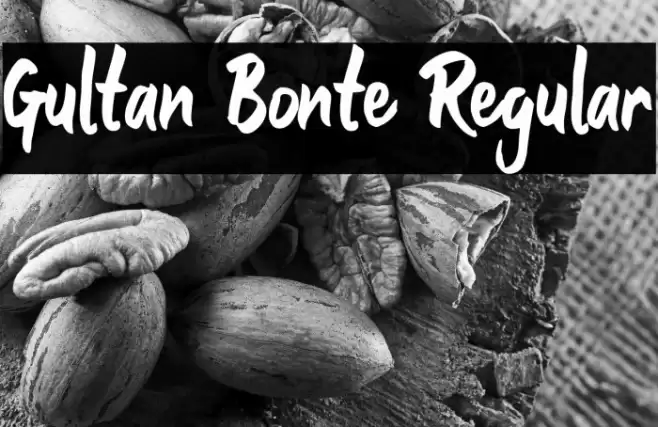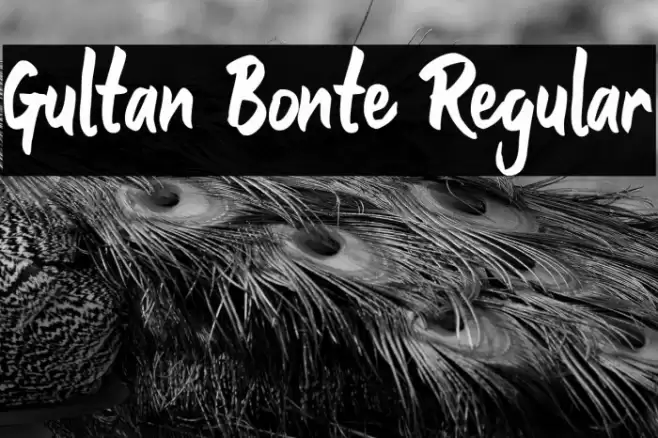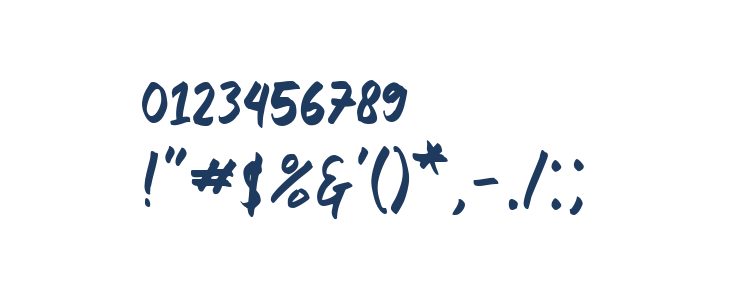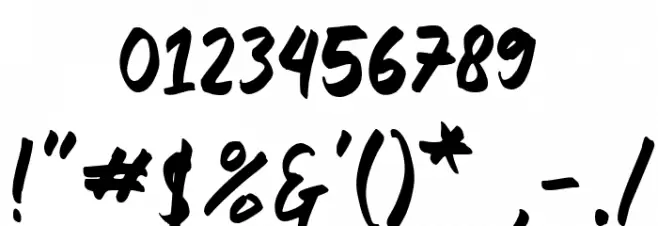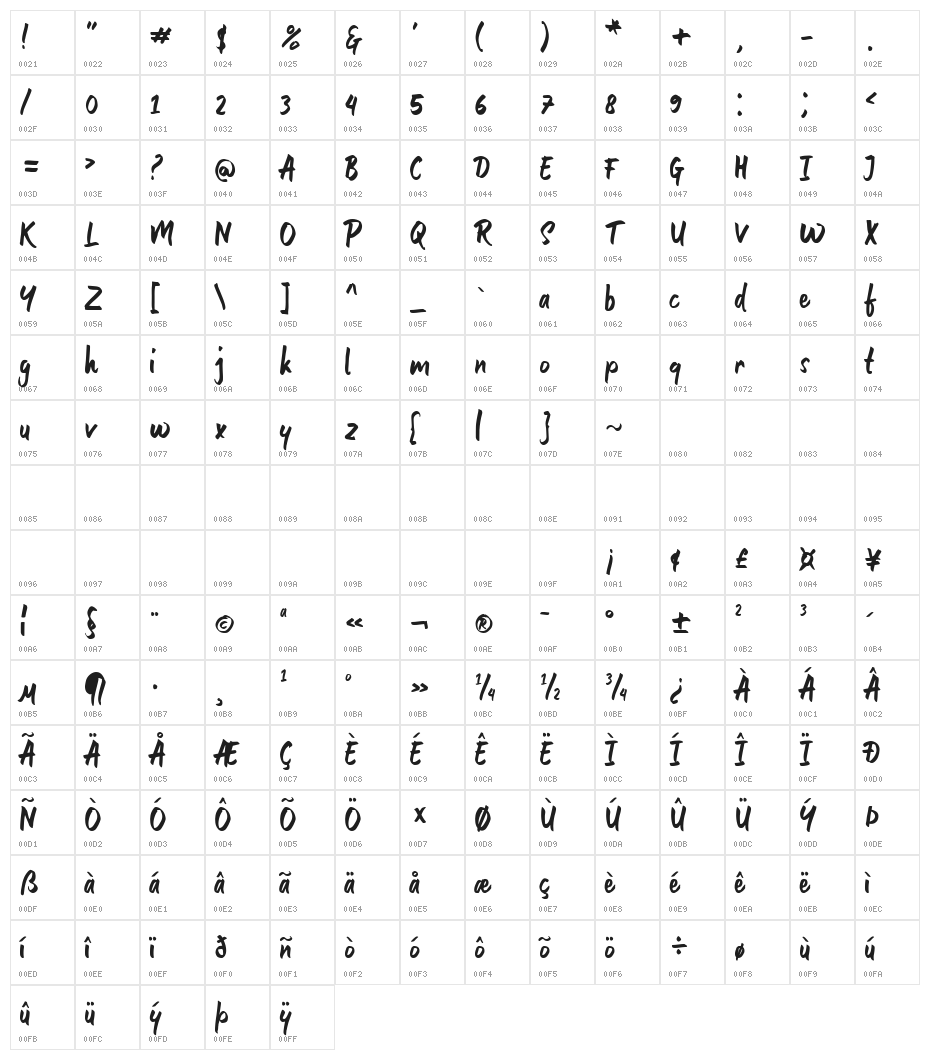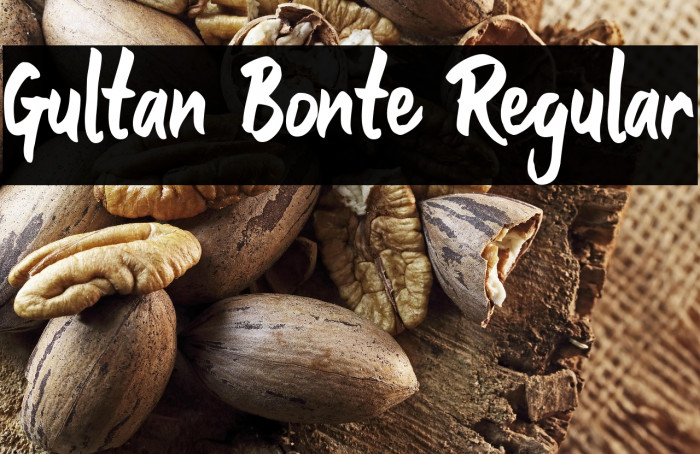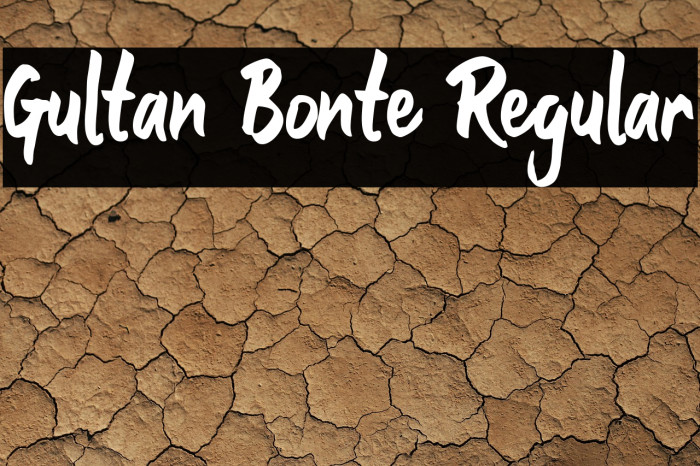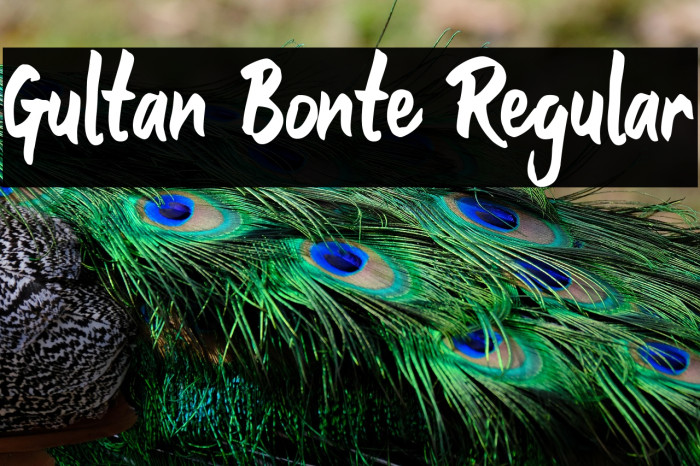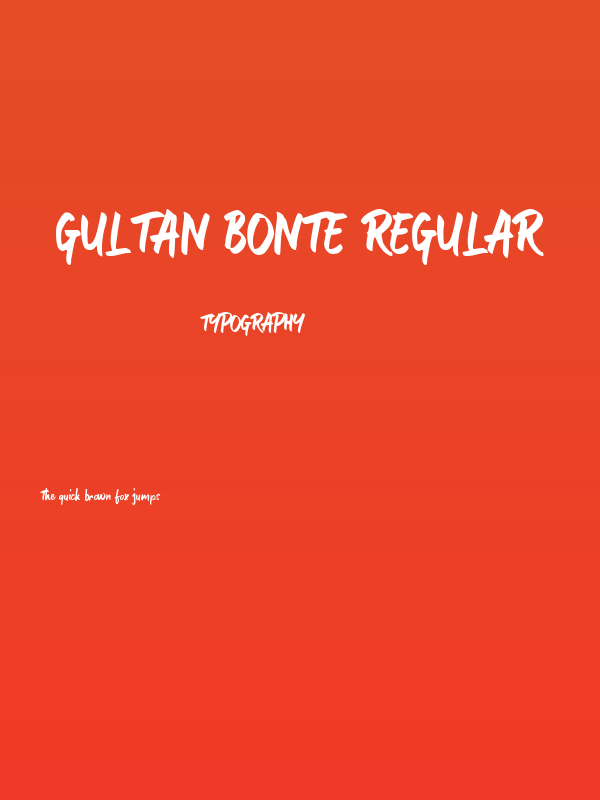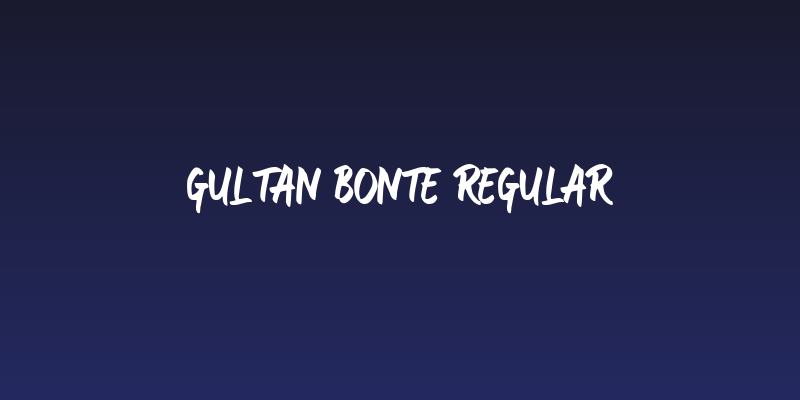
Gultan Bonte Regular Font
Gultan Bonte Regular Description
This font features a bold, handwritten style with a dynamic and energetic appearance. The letters are slightly slanted, giving it a casual and informal vibe. The strokes are thick and consistent, providing a strong presence on the page. The uppercase and lowercase letters maintain a cohesive look, with rounded edges and a playful character. Numbers and special characters are designed to match the overall style, ensuring versatility in various applications. The font's lively and expressive nature makes it suitable for creative projects that require a personal touch.
A bold, handwritten font with a dynamic and energetic style from Regular fonts.